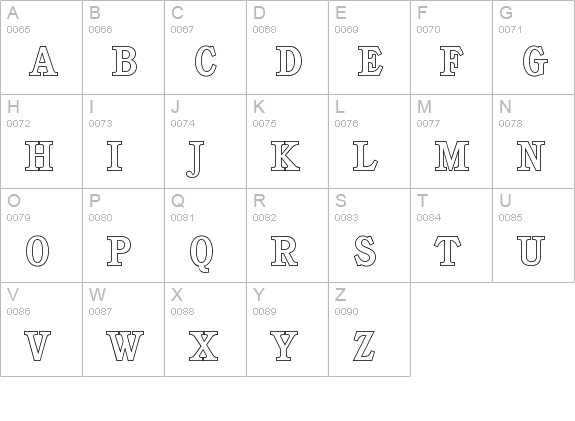
CalgaryOutline-Medium-Regular is a balanced, medium-weight variant in the CalgaryOutline typeface family \xE2\x80\x94 well suited to sub-headlines, navigation, and balanced editorial work.